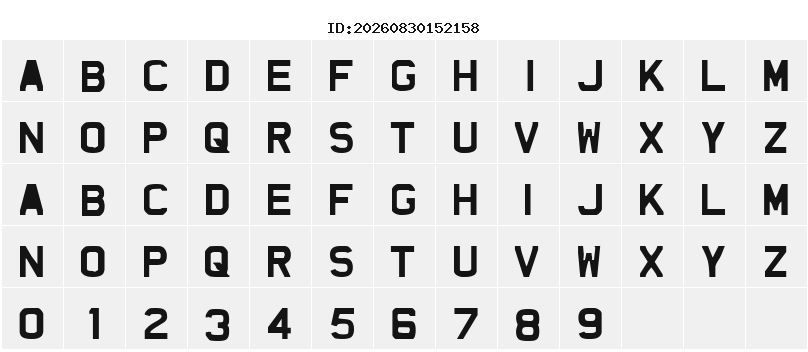
• Font Name: The Fragile
• Font Style: Bold Caps
• Full Font Name: The Fragile Bold Caps
• Copyright: Created by Leviathant@theNINhotline.net and mokeejc@home.com, based on a typeface utlilized by David Carson for the nine inch nails album, The Fragile. http://www.theNINhotline.net - http://come.to/halo99
About The Fragile.ttf
The Fragile.ttf is a modern, elegant sans-serif font designed for ultimate readability and visual harmony. Perfect for branding, headlines, web design, and print materials.